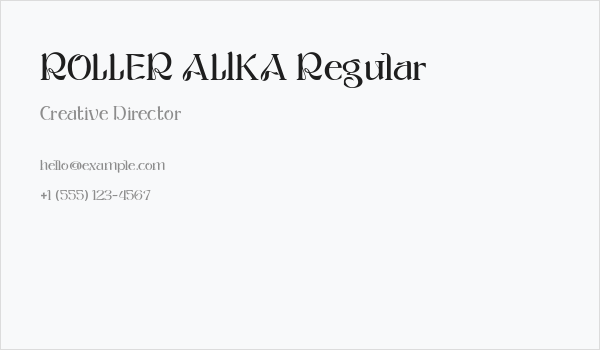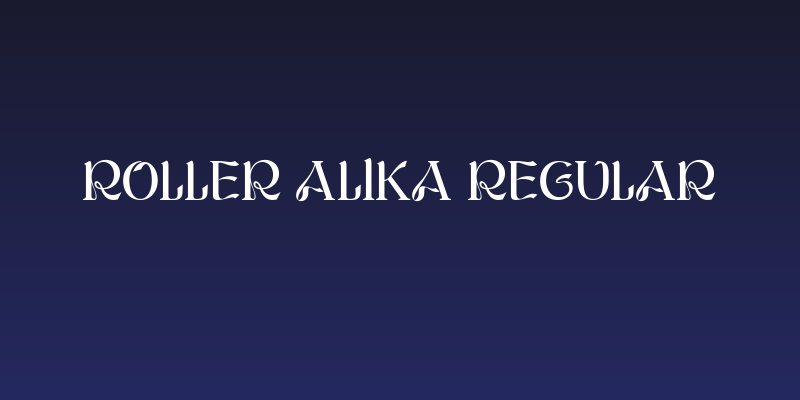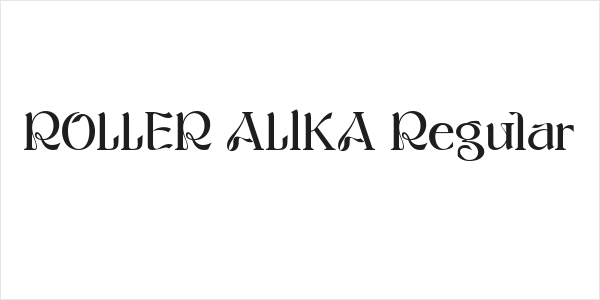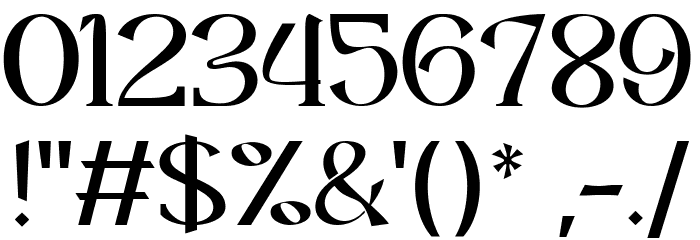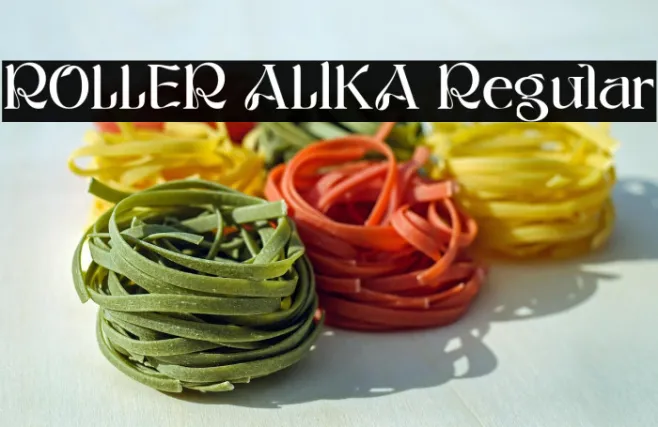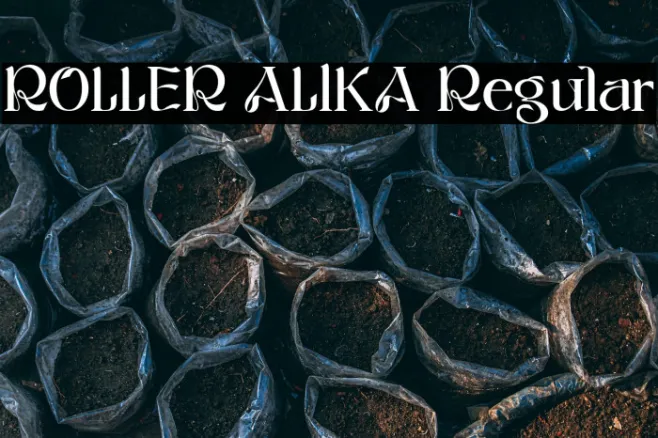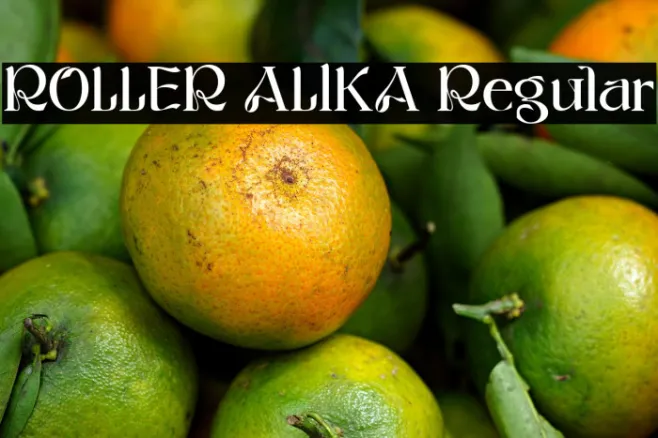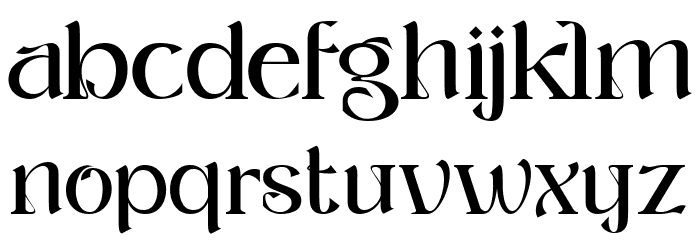
ROLLER ALIKA Regular Font
ROLLER ALIKA Regular Description
This font features a unique blend of modern and decorative styles, characterized by its bold and artistic letterforms. The uppercase letters exhibit a distinct flair with curved and angular elements that create a sense of movement and elegance. The lowercase letters maintain a consistent style, complementing the uppercase with their own subtle curves and unique shapes. The numerals are bold and clear, ensuring readability while maintaining the font's artistic flair. Special characters are designed with the same attention to detail, making them stand out while remaining cohesive with the overall design. This font's intricate design elements make it suitable for creative and expressive projects.